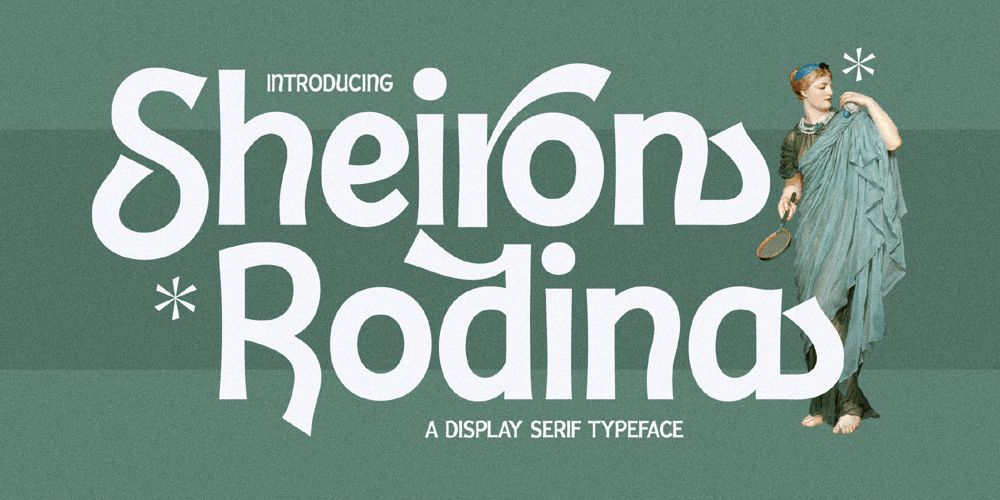
Sheiron Rodina
Sheiron Rodina font
Sheiron Rodina Font Family was designed by Heru Utama Putra and published by Letterena Studios. Sheiron Rodina contains 2 styles and family package options. Sheiron Rodina is a modern display serif font. This typeface is perfect for an elegant & luxury logo, book or movie title design, fashion brand, magazine, clothes, lettering, quotes, and so much more.